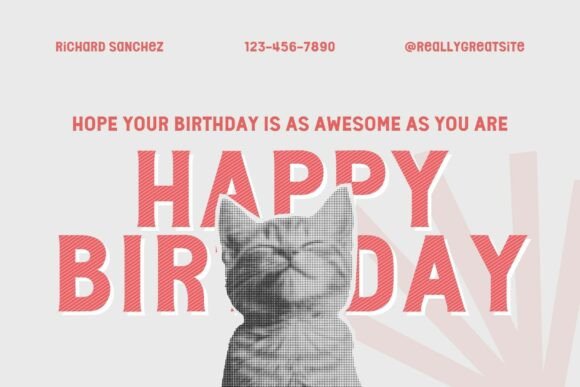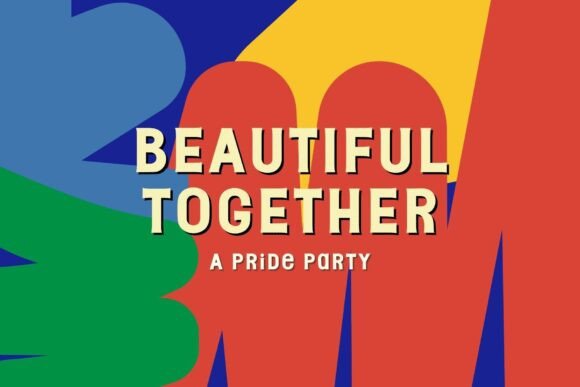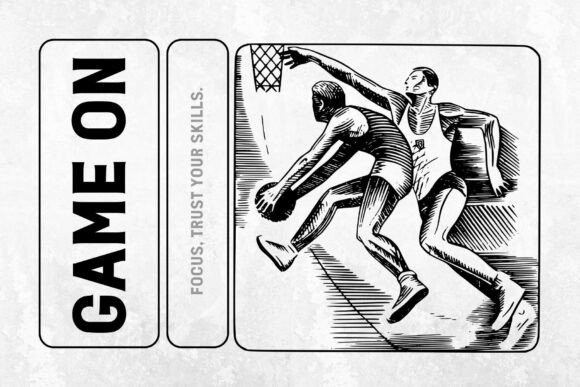
Introducing Fox Minko: The Retro Bold Display Font That’s Making Waves
I’ll never forget the design struggle I faced while working on a vintage-inspired sports apparel project. My client wanted a font that screamed confidence, energy, and a hint of nostalgia. I scoured the internet, tried countless fonts, but nothing seemed to fit the bill. That was until I stumbled upon Fox Minko – a bold, retro display font that instantly captured the essence of my client’s vision. In this article, I’ll share my love for Fox Minko, its features, and provide a comprehensive guide on how to make the most of this incredible typeface.
A Personal Review: What I Love About Fox Minko
Here’s what makes Fox Minko a standout font:
- ✨ Retro charm with a modern twist: Fox Minko’s unique blend of vintage and contemporary elements makes it perfect for designs that need a bold, eye-catching font.
- ✅ Versatility: With three styles to choose from, you can experiment with different looks and find the perfect fit for your project.
- 🔥 High-impact letterforms: Fox Minko’s strong, playful proportions, and clean geometry make it ideal for creating powerhouse headlines that demand attention.
- 👍 Easy to pair: This font pairs exceptionally well with rugged textures and muted earth tones, making it a great choice for craft beer labels, outdoor equipment branding, and more.
While Fox Minko is an amazing font, there are a few things to keep in mind:
- 🤔 Legibility at small sizes: Due to its bold nature, Fox Minko may not be the best choice for body text or small font sizes. It’s best used for headlines or titles.
- ⚠️ Overuse: As with any bold font, be careful not to overuse Fox Minko. Balance it with other fonts or design elements to avoid overwhelming your design.
The Story Behind Fox Minko
Fox Minko was designed with the goal of creating a bold, retro display font that would evoke the classic feel of vintage posters and athletic typography. The designer drew inspiration from the clean geometry and strong letterforms of classic typography, adding a modern twist to create a unique and eye-catching font. With its three styles and OpenType features, Fox Minko is perfect for designers looking to add a touch of nostalgia and confidence to their designs.
| Font Name | Fox Minko Font |
| Author | Fox7 |
| What is Fox Minko? | Fox Minko is a bold, retro display font with three styles, inspired by vintage posters and classic typography. |
| What can I use Fox Minko for? | Fox Minko is perfect for designs that need a bold, eye-catching font, such as headlines, titles, and bold statements. Use it for vintage sport apparel, industrial-style branding, craft beer labels, and more. |